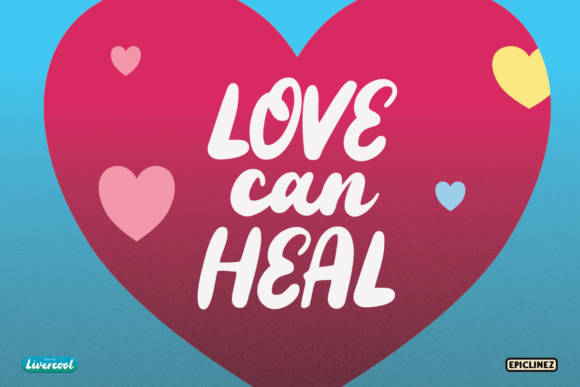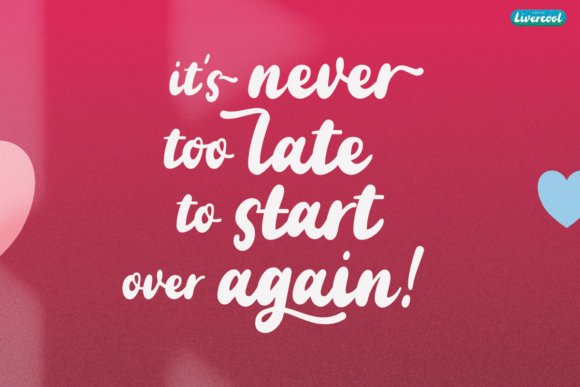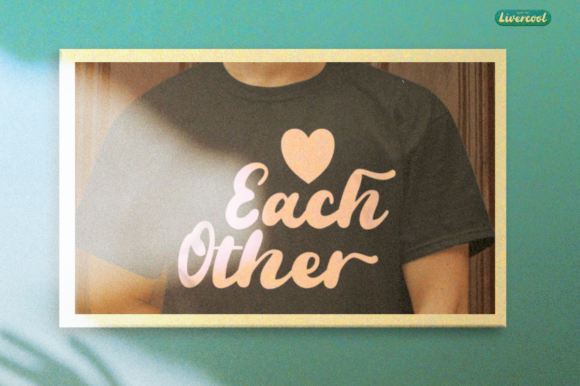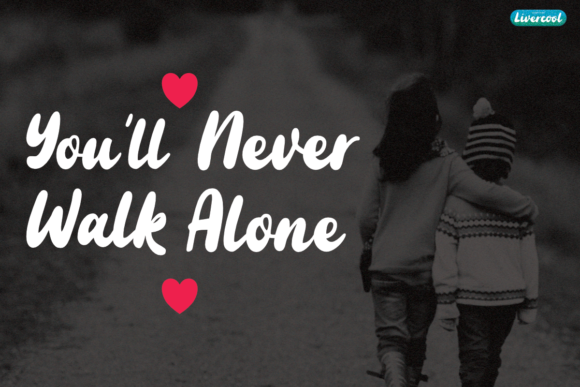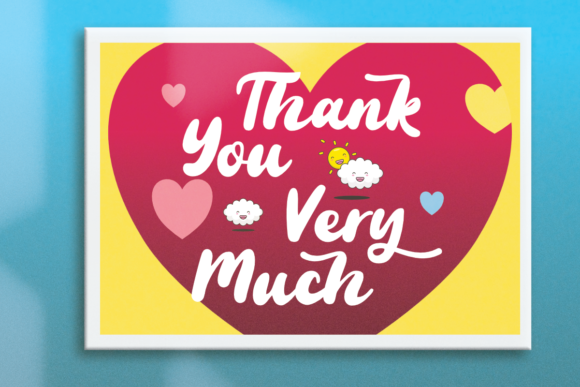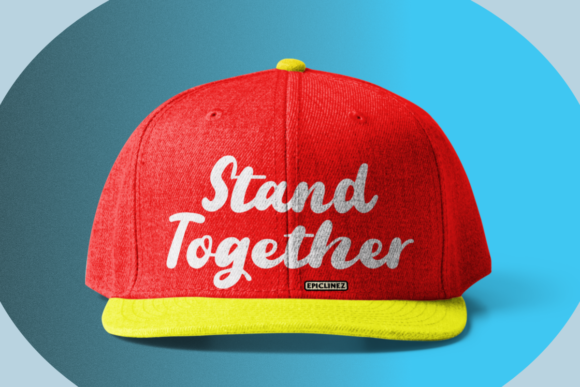
Introduction to Livercool Font
Imagine you’re brainstorming ideas for a new design project, and suddenly, a burst of creativity hits you. You envision a bold, eye-catching logo that screams personality and style. That’s where the Livercool Font comes in – a high-quality, free download that’s sure to elevate your creative project to the next level.
As a valuable resource for designers, the Livercool Font offers a range of features that make it perfect for logos, branding, and social media. With its transparent background and PUA encoded design, you can easily customize your design without worrying about tedious background removal. Plus, its multilingual capabilities make it an excellent choice for global campaigns. Whether you’re a seasoned pro or a design enthusiast, the Livercool Font is an essential tool to have in your design arsenal.
Key Features of Livercool Font
- Includes a range of characters, including uppercase and lowercase letters, numbers, and symbols
- Perfect for use in digital design, including logos, graphics, and web design
Honest Review: Livercool Font
As a designer, I’m always on the lookout for high-quality design resources to elevate my creative projects. Recently, I stumbled upon the Livercool Font, and I’m excited to share my honest review with you.
- ✨ The Livercool Font offers a unique, modern design that can add a touch of sophistication to any project.
- ✨ The transparent background option allows for easy customization and integration with other design elements.
- ⚠️ The font’s legibility can be a bit inconsistent at smaller font sizes.
- ⚠️ The font family is relatively small, which may limit its versatility in certain projects.
Overall, I’m impressed with the Livercool Font’s potential and its ability to enhance creative projects. While it may have some limitations, its unique design and free download make it a worthwhile resource for designers. I’d definitely recommend it to anyone looking for a modern, high-quality font to add to their design arsenal.
How to Use Livercool Font
The Livercool Font is a high-quality, free download perfect for designers and artists working on creative projects. This versatile font is ideal for a variety of applications, from logo designs to branding materials.
Customization and Tips
For optimal results, use the Livercool Font with a transparent background. This allows for seamless integration with your design. Experiment with different font sizes, colors, and combinations to achieve a unique look.
The Livercool Font is suitable for a range of creative projects, including:
- Logo designs and branding materials.
- Business cards and letterheads.
- Infographics and presentations.
- Social media graphics and advertisements.
Alternatives to Livercool Font
Open Sans is a high-quality sans-serif font designed by Steve Matteson. It’s a popular design resource that’s perfect for creative projects that require a clean and modern look. Open Sans is available for free download and features a transparent background, making it ideal for use on various design elements.
Open Sans is a great alternative to Livercool Font because it offers a similar modern feel, but with a more neutral tone. It’s a versatile font that works well for both headings and body text, making it a great choice for a wide range of creative projects.
Montserrat is a geometric sans-serif font designed by Julieta Ulanovsky. It’s a high-quality design resource that’s perfect for creative projects that require a urban and modern look. Montserrat is available for free download and features a transparent background, making it ideal for use on various design elements.
Montserrat is a great alternative to Livercool Font because it offers a similar modern feel, but with a more geometric and industrial tone. It’s a great choice for creative projects that require a strong and urban aesthetic.
Lato is a sans-serif font designed by Łukasz Dziedzic. It’s a high-quality design resource that’s perfect for creative projects that require a clean and elegant look. Lato is available for free download and features a transparent background, making it ideal for use on various design elements.
Lato is a great alternative to Livercool Font because it offers a similar modern feel, but with a more elegant and refined tone. It’s a great choice for creative projects that require a sophisticated and high-end aesthetic.
Can I use the Livercool Font for a commercial project?
Yes, the Livercool Font is licensed for commercial use. You can use it for any creative project, including logos, branding materials, and advertising campaigns. However, please ensure that you follow the licensing terms and conditions for proper usage.
Does the Livercool Font have a transparent background?
Yes, the Livercool Font has a transparent background, making it ideal for use on images and backgrounds with varying levels of opacity. This feature allows for a clean and professional look in your designs.